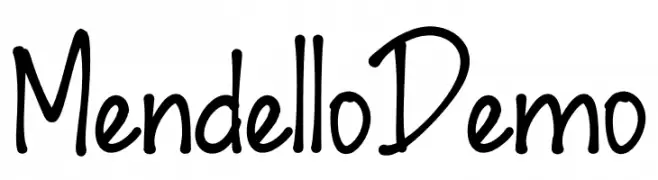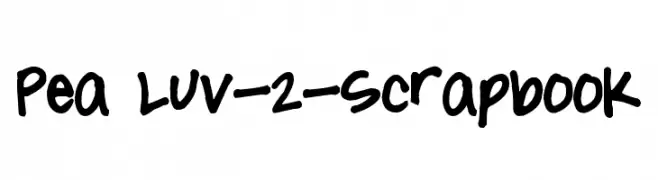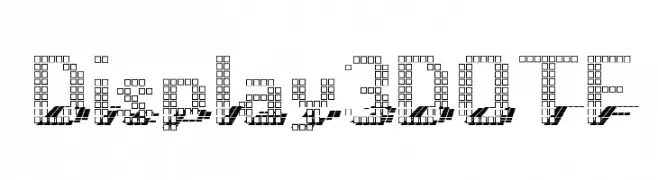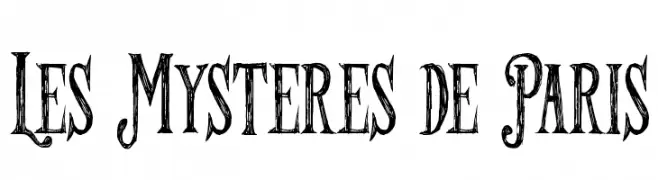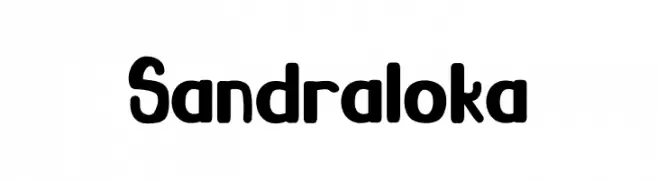
A bold, textured font with a dynamic, vibrating appearance.
A bold, hand-drawn font with a playful, distressed texture.
A playful, handwritten font with dynamic and fluid strokes.
A playful, handwritten font with bold, rounded strokes and a casual feel.
A playful, handwritten font with fluid strokes and a casual aesthetic.
A three-dimensional, pixelated block font with a modern, digital aesthetic.
A vintage, decorative font with a distressed, hand-drawn appearance.
A playful, rounded font with a bold and friendly appearance.